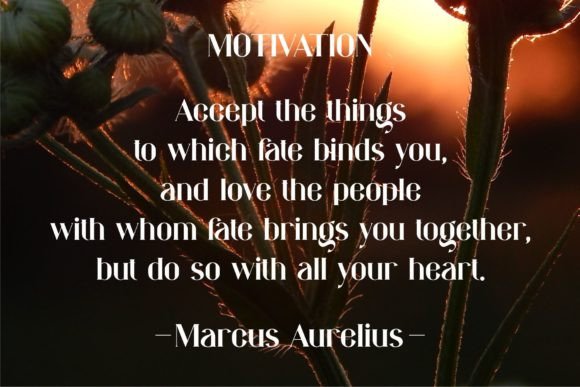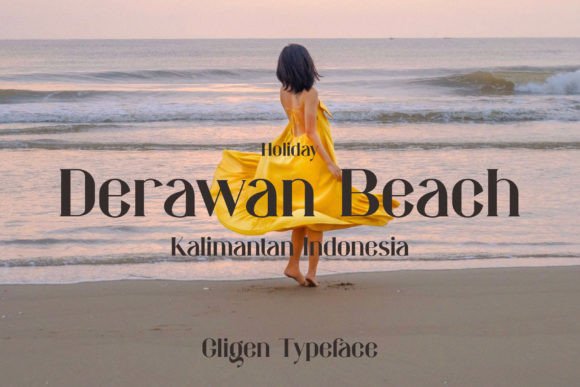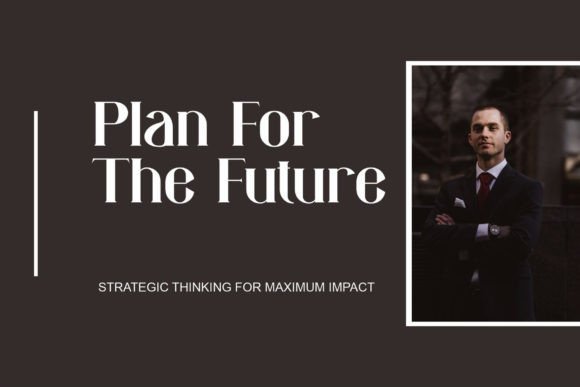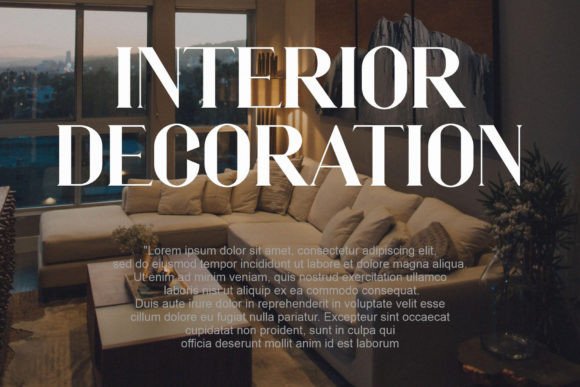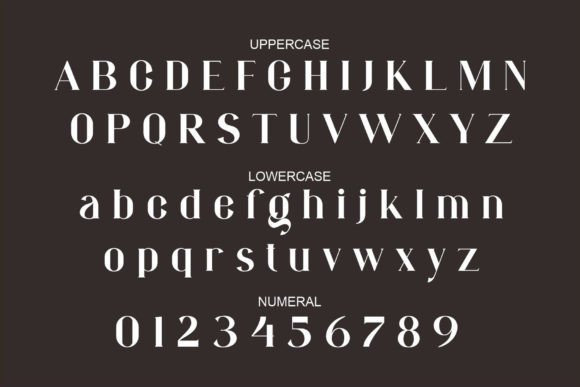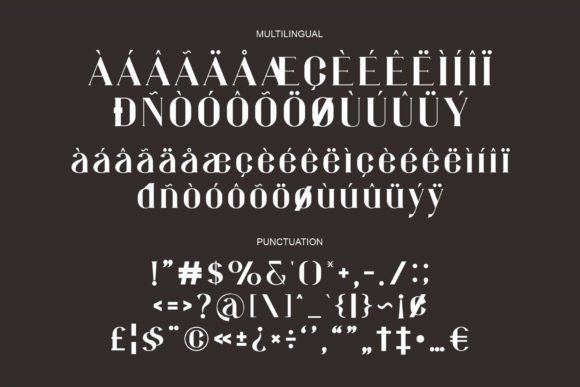
Introducing Gligen Font: Elevate Your Designs with Elegance and Sophistication
In the world of typography, finding the perfect font that embodies elegance, class, and modernity can be a daunting task. However, for designers and crafters seeking to add a touch of sophistication to their work, Gligen is here to revolutionize your creative process. This stunning serif typeface seamlessly blends modern and nostalgic elements, making it an ideal choice for a wide range of design projects.
The Essence of Gligen Font
Gligen is an elegant and classy serif typeface that exudes refinement and luxury. Its unique design makes it both modern and nostalgic, allowing it to stand out in any design. Whether you’re working on logos, magazines, social media graphics, or any other visual project, Gligen is the perfect companion to elevate your work to new heights.
Key Features of Gligen Font
- Elegant and Classy Design: Gligen boasts a sophisticated design that adds a touch of elegance to any project.
- Modern and Nostalgic: This font uniquely blends modern typography with nostalgic elements, making it versatile for various design needs.
- Ready to Use: Gligen comes matched up and ready to be used together for your next design project, saving you time and effort.
- Versatile: Ideal for logos, magazines, social media graphics, and more, Gligen adapts seamlessly to different design contexts.
Why Choose Gligen Font?
For those seeking to infuse their designs with elegance, stylishness, class, chic, and modernity, Gligen was created as the perfect solution. Here are a few reasons why Gligen stands out:
- Unique Aesthetic: Gligen offers a unique aesthetic that is hard to find in other typefaces, making your designs instantly recognizable.
- Time-Saving: With Gligen being already matched up and ready to use, you save valuable time that can be spent on other creative aspects of your project.
- Versatility: Its adaptability to various design projects means you can use Gligen across different mediums without worrying about consistency.
How to Use Gligen Font Effectively
To make the most out of Gligen, consider the following tips:
- Pairing: Experiment with Gligen in combination with other fonts to create stunning contrasts and harmonies.
- Sizing: Play with different sizes to emphasize headings, subheadings, and body text, creating a visual hierarchy.
- Color: Choose colors that complement the elegance of Gligen, such as neutral tones or rich jewel tones.
Gligen font is a game-changer for designers and crafters looking to add a touch of elegance, class, and modernity to their work. Its unique blend of modern and nostalgic elements, coupled with its versatility and ease of use, makes it an indispensable tool in your design arsenal. Whether you’re working on a logo, magazine, or social media graphics, Gligen is your go-to typeface for creating stunning, sophisticated designs.
Embrace the elegance and sophistication that Gligen has to offer and elevate your designs to new heights of creativity and professionalism.